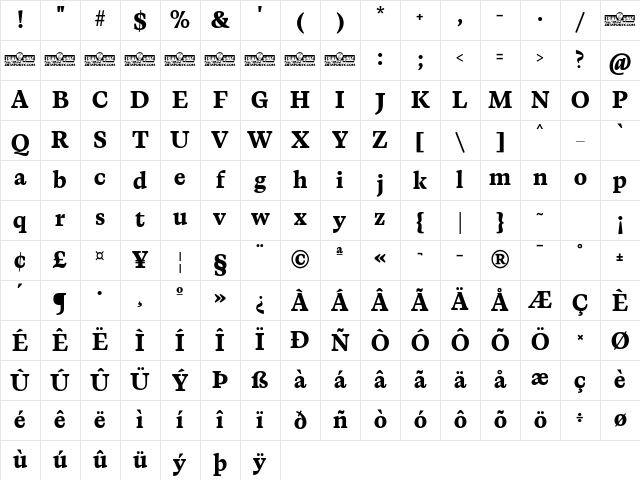
CalvinoTrial Extrabold Free Font
CalvinoTrial Extrabold
Style: Extrabold
Foundry: Ligatures
Designer: Andrea Tartarelli
Design Context for CalvinoTrial
CalvinoTrial is a composed and adaptable typeface that performs quietly and consistently across a wide range of design contexts. Its bold stroke weight gives it real presence on the page.